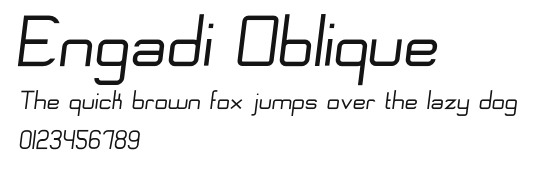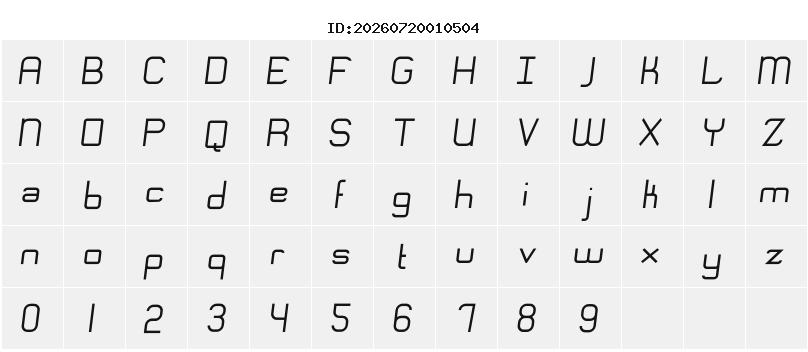
• Font Name: Engadi Oblique
• Full Font Name: Engadi Regular Oblique
• PostScript Name: Engadi-RegularOblique
• Designer: Ben Mahaffey
About Engadi Oblique.otf
Engadi Oblique.otf is a modern, elegant sans-serif font designed for ultimate readability and visual harmony. Perfect for branding, headlines, web design, and print materials.